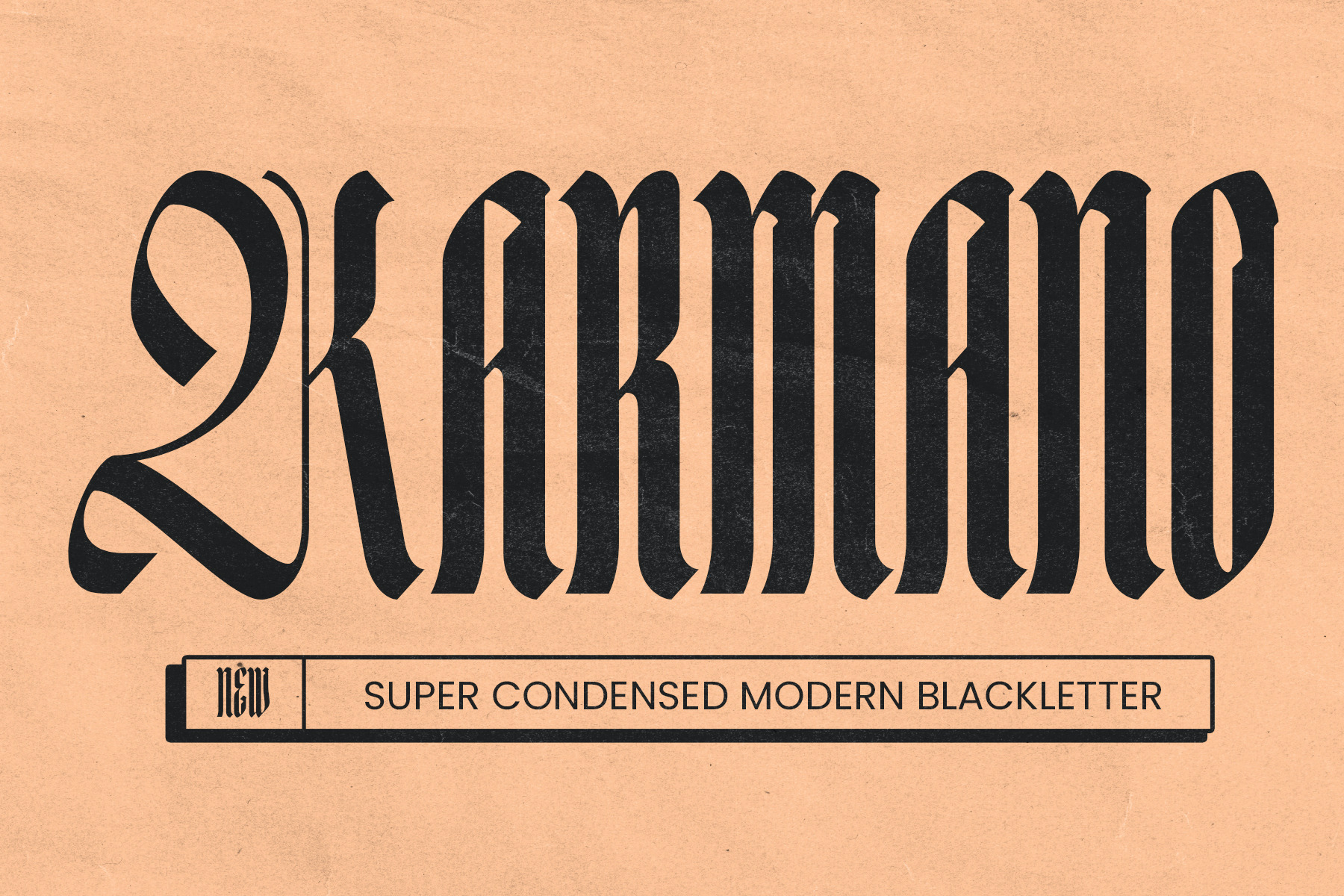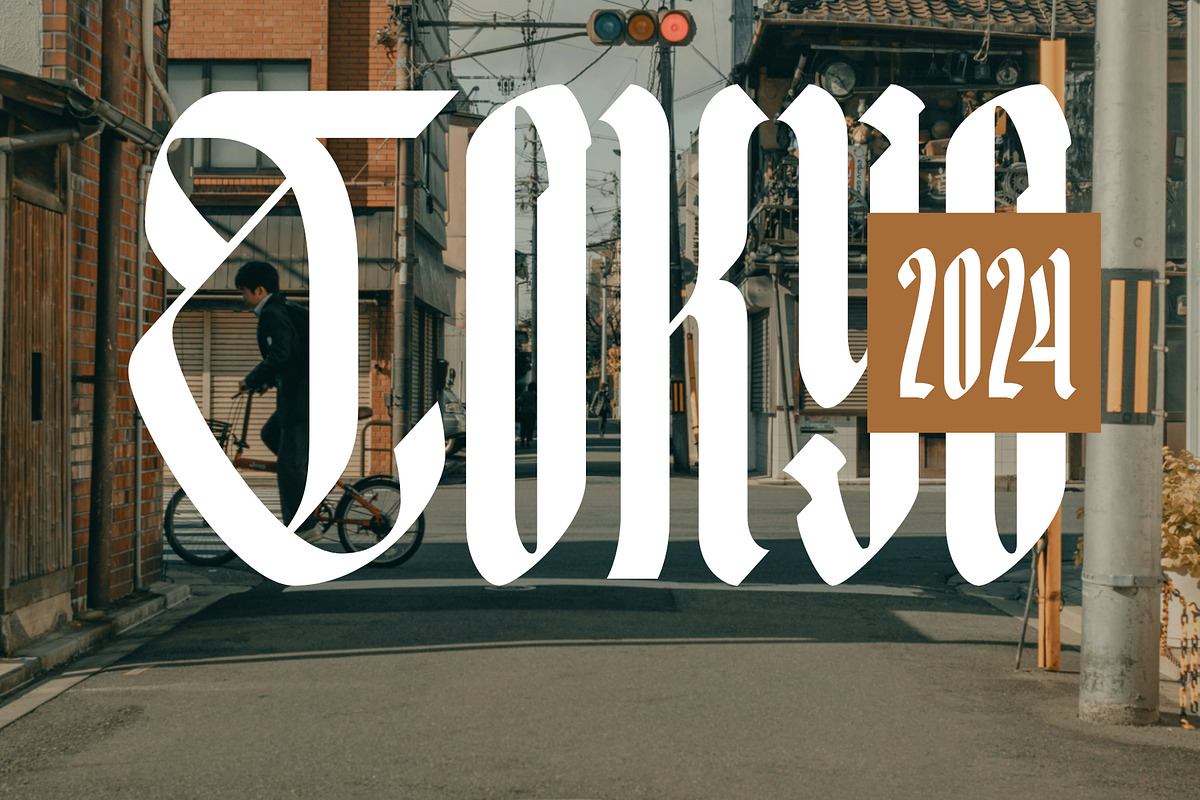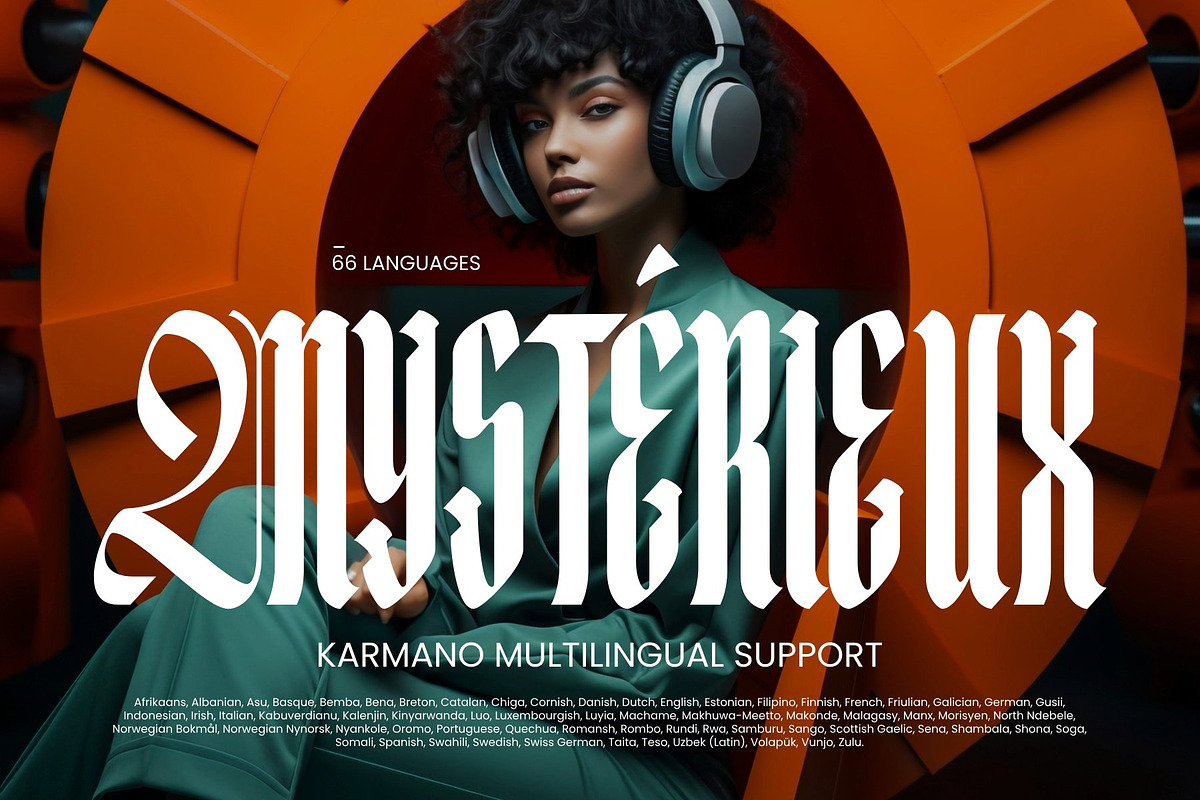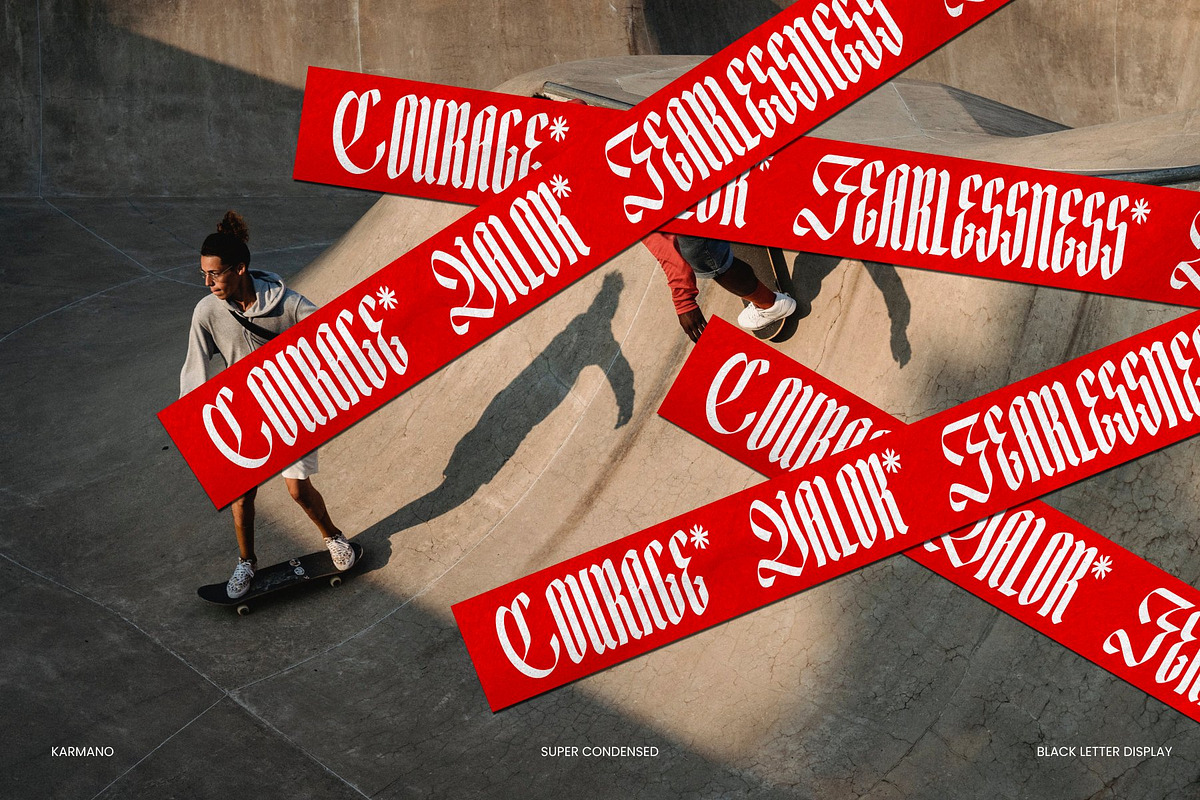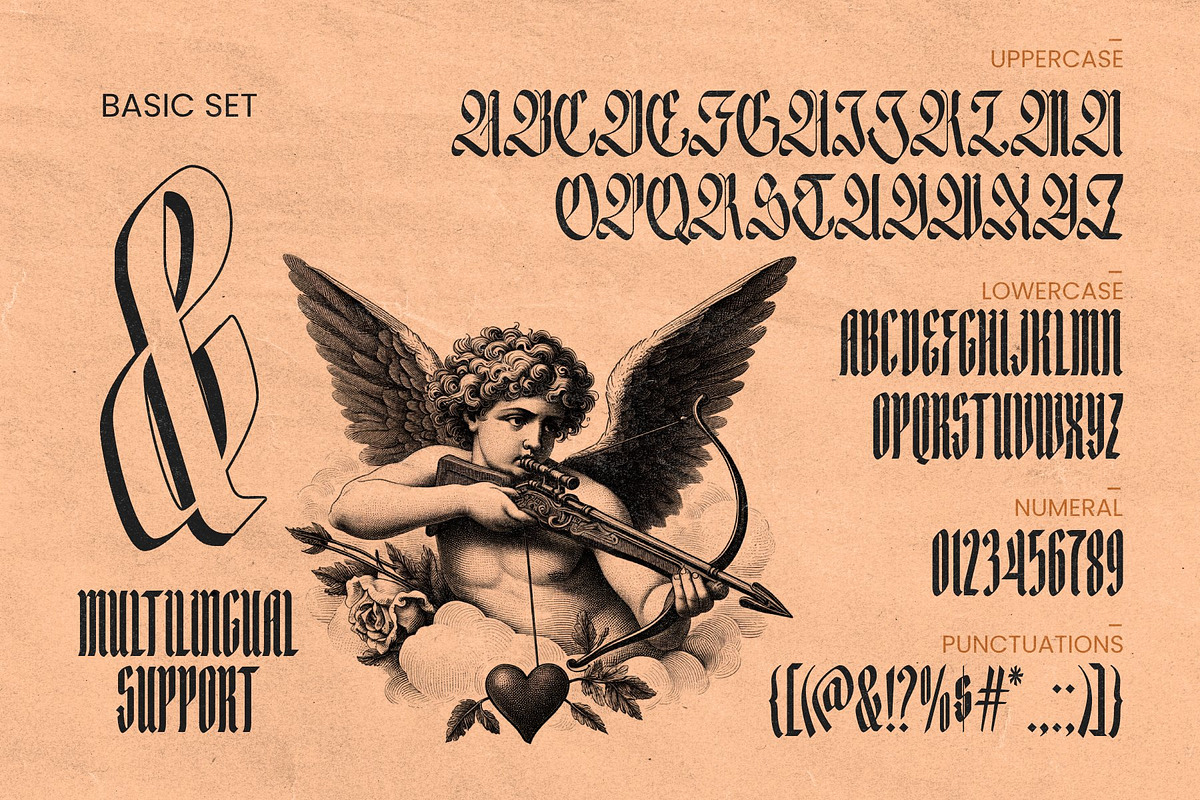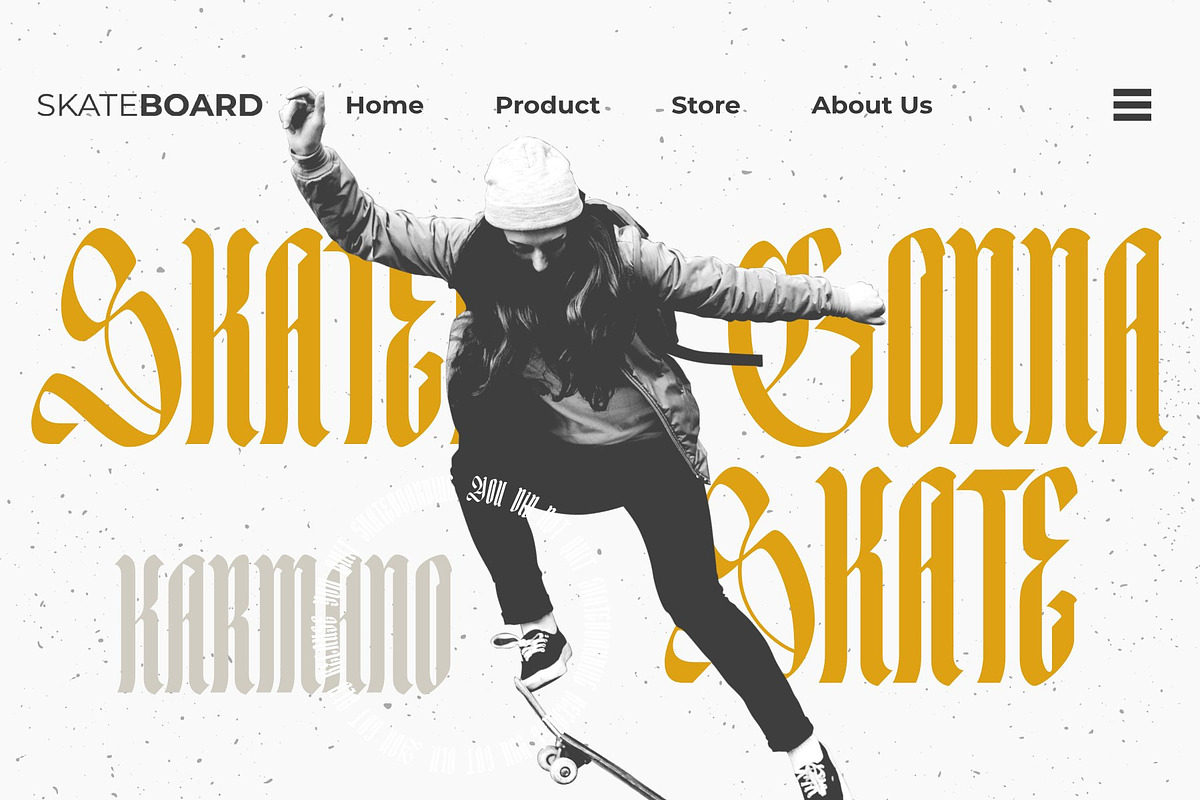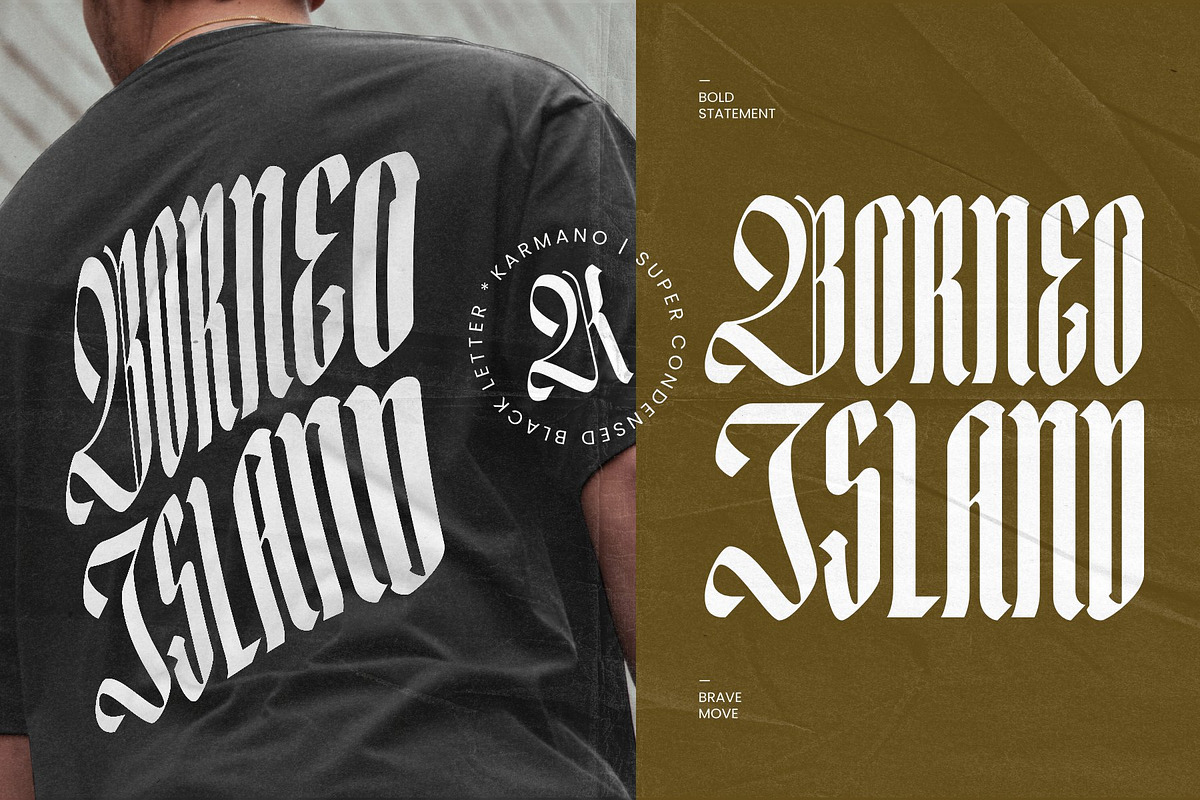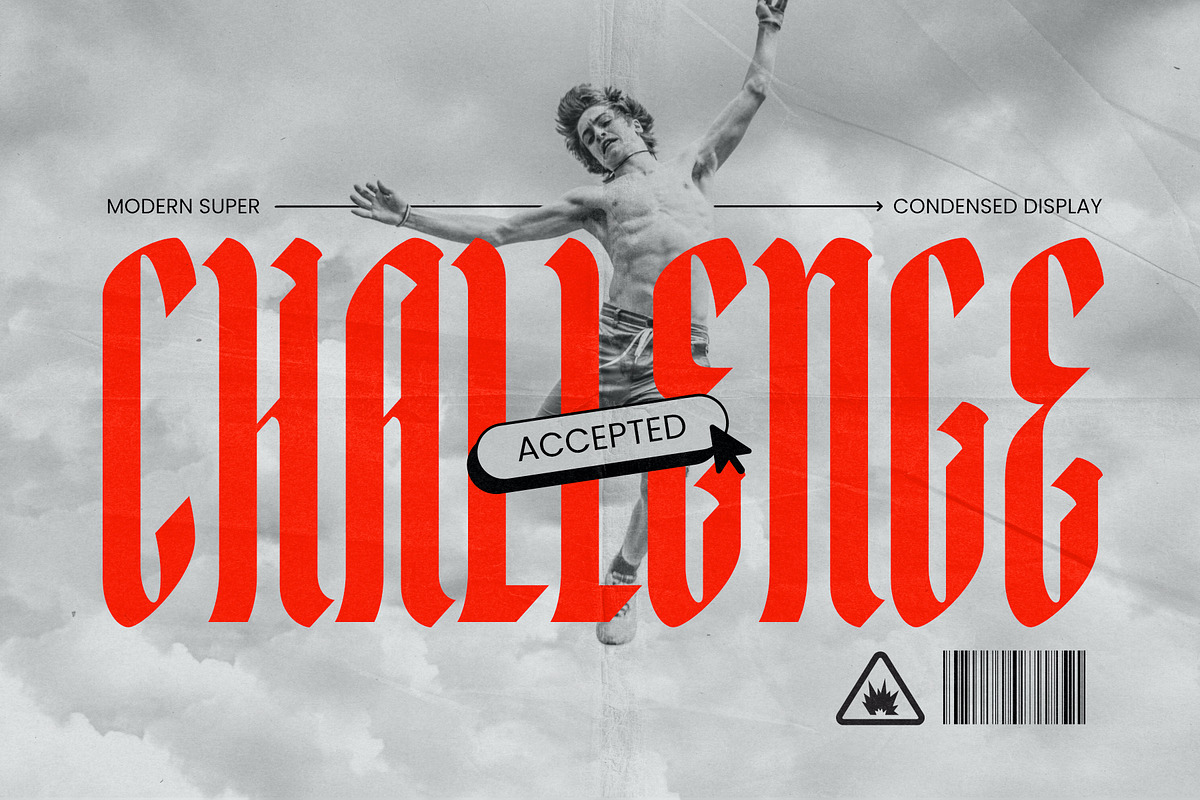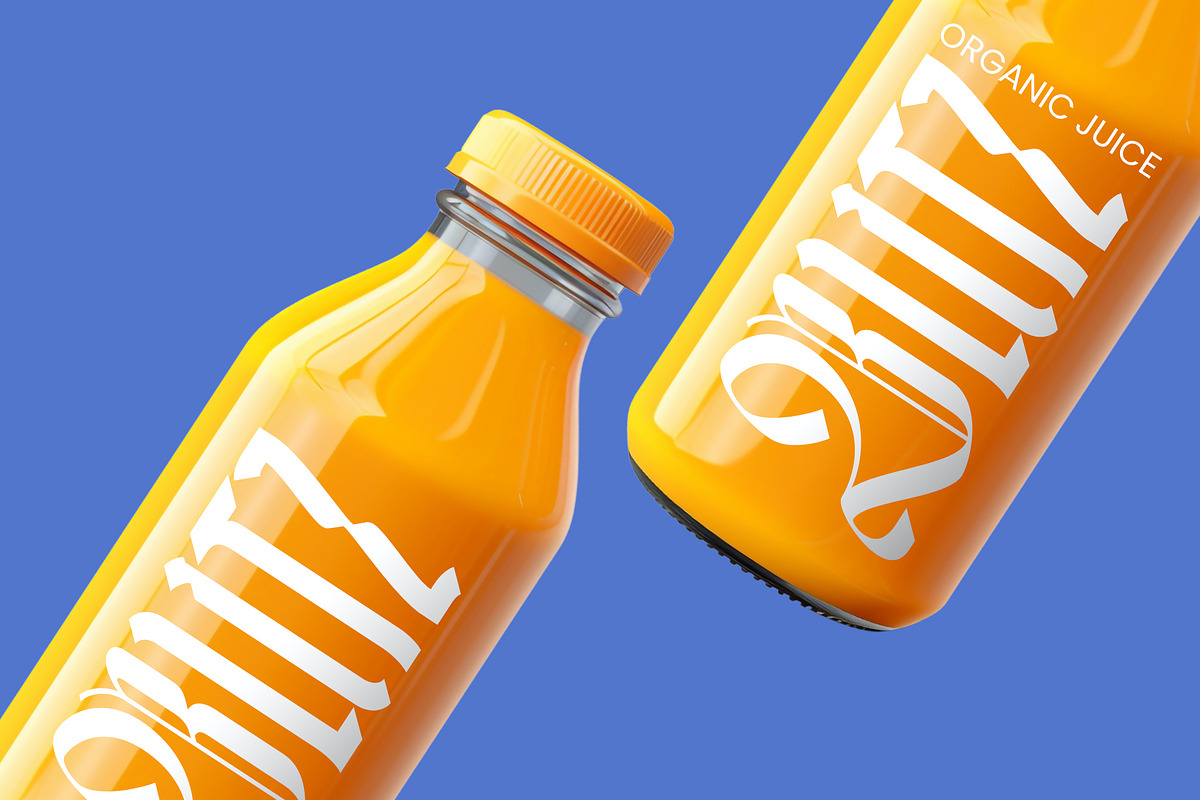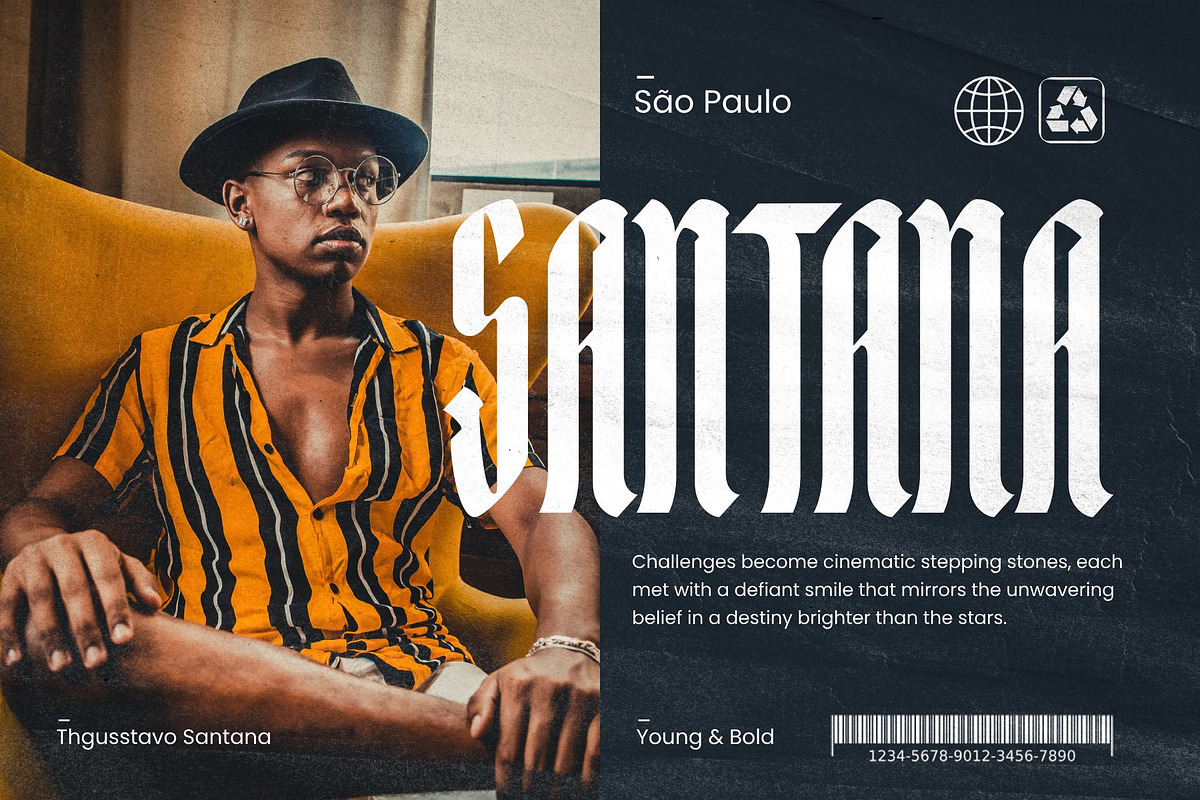
Karmano - Condensed Blackletter Font
Karmano is a super condensed modern blackletter font. This unique style is inspired by classic hand lettering, with the flair of modern streetwear apparel designs.
Karmano is perfect for creating trendy logos and headline designs for websites and editorial projects.